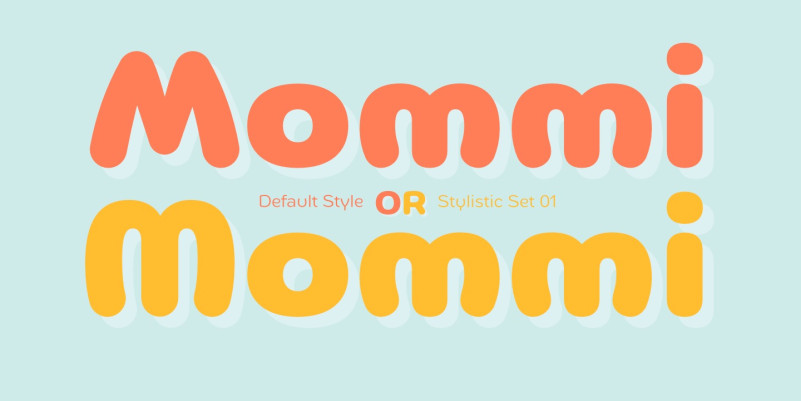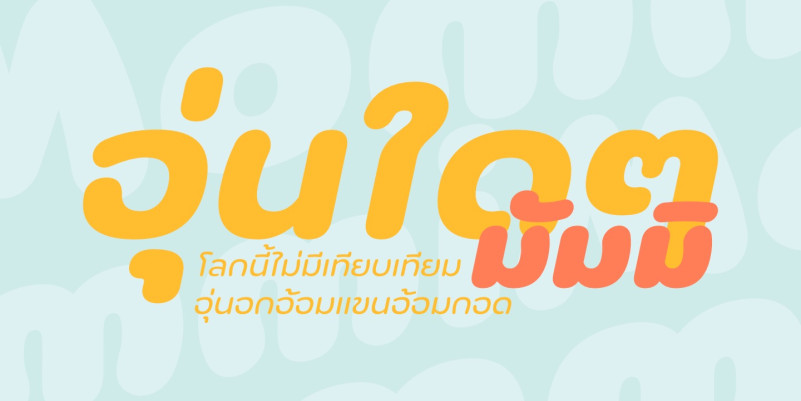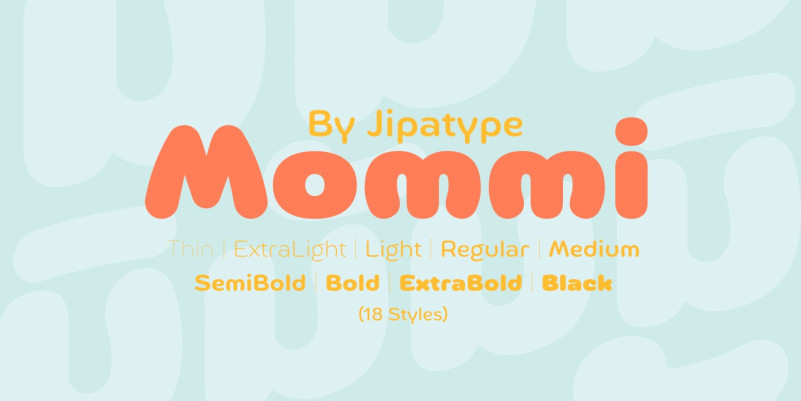
Mommi Font
Mommi Display Font, This font was created for all forms of business and branding such as clothing, logos, skate boards and others according to your needs.